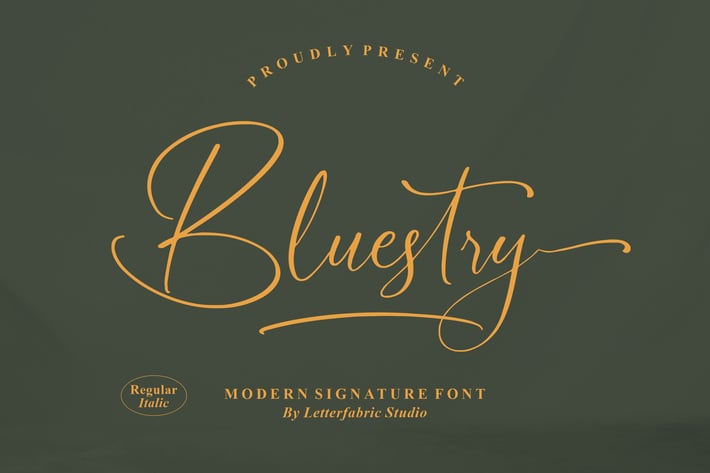
Bluestry Modern Signature Font
Bluustry is a modern signature font designed to bring a touch of elegance and sophistication to your creative projects. With its smooth strokes and flowing curves, this font is perfect for creating a luxurious and timeless impression in both digital and printed works.
+ Modern and elegant signature style
+ Smooth strokes with stylish alternates
+ Perfect readability in both large and small sizes
+ Works seamlessly for branding and creative projects
+ Branding and logo design
+ Social media graphics
+ Wedding invitations
+ Business cards and stationery
+ Elegant product packaging
Bring timeless elegance to your designs with Bluustry, a signature font that blends modern sophistication with classic charm.